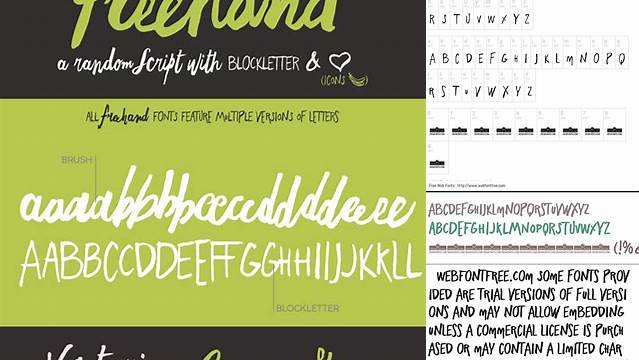
Dafont Freehand Blockletter Fonts: Your Go-To Guide
Hey guys, ever found yourself scrolling through Dafont, desperately searching for that perfect freehand blockletter font? You know the vibe: bold, a little rough around the edges, but with a personal touch that screams uniqueness. Whether you're designing a cool t-shirt, crafting a catchy social media post, or even working on a personal project that needs that extra bit of character, finding the right font can be a game-changer. And let's be real, when we're talking about that dafont freehand blockletter style, we're often looking for something that feels a bit more organic, less like it came straight off a digital printer and more like it was sketched out with love (and maybe a thick marker!).
This isn't just about finding any old font; it's about discovering those gems that capture a specific aesthetic. Freehand blockletters have this awesome retro feel, often associated with vintage signage, old-school graffiti, and DIY projects. They usually feature thick, uniform strokes, with a somewhat casual and imperfect outline. The 'freehand' aspect implies a lack of strict geometric precision, allowing for slight variations in line weight and character shape, which is exactly what gives them their charm. Dafont, being the massive treasure trove it is, hosts a dizzying array of these styles. So, let's dive deep into the world of dafont freehand blockletter fonts and uncover some absolute winners that will elevate your designs. We'll explore different categories, discuss what makes a good freehand blockletter font, and point you towards some specific examples you can start downloading right now. Get ready to boost your font game, because we're about to make your design life a whole lot easier and a whole lot cooler. Let's get this font party started!
Exploring the Nuances of Freehand Blockletter Typography
The term freehand blockletter itself conjures up a very specific visual. Think of those classic, robust letterforms that appear to have been drawn rather than meticulously designed on a computer. The 'blockletter' part refers to the substantial, often uniform thickness of the strokes, giving the letters a solid, impactful presence. What sets a freehand blockletter apart, however, is the subtle imperfection that comes with the human touch. Unlike sterile, perfectly geometric fonts, freehand versions might feature slight wobbles, inconsistent curves, or a playful irregularity in the spacing. This is precisely what makes them so appealing for projects that aim for a raw, authentic, or vintage feel. When you’re browsing Dafont for these types of fonts, you’ll notice a spectrum of styles, from those that are barely distinguishable from perfect digital creations to those that wear their hand-drawn origins proudly, with visible sketch lines or brush strokes.
Understanding these nuances is key to selecting the right font for your needs. Are you going for a bold, attention-grabbing headline that has a touch of a street art vibe? Or perhaps a more distressed, vintage look for a logo that evokes a bygone era? The subtle differences in the 'freehand' quality can drastically alter the overall mood and message of your design. Some freehand blockletters lean heavily into a stencil aesthetic, with sharp edges and deliberate breaks, perfect for that industrial or military-inspired look. Others might have a softer, more rounded quality, reminiscent of hand-painted signs on old shop fronts. Dafont is a fantastic resource because it categorizes fonts in ways that help users find these specific styles, even if they don't know the exact technical term. Searching for 'blockletter,' 'brush,' 'stencil,' or even 'hand-drawn' can often lead you to the dafont freehand blockletter style you're after. It's about appreciating the artistry involved in creating a font that feels personal and dynamic, even when it's rendered digitally. So, when you’re next on Dafont, take a moment to really look at the details – the subtle curves, the unique terminals, the overall texture. That’s where the magic of freehand blockletter typography truly lies.
Discovering Unique Freehand Blockletter Styles on Dafont
When you're on the hunt for that perfect freehand blockletter font on Dafont, it's easy to get overwhelmed by the sheer volume. But trust me, guys, the platform is a goldmine if you know what you're looking for. Beyond the standard blocky designs, Dafont hosts an incredible variety of unique interpretations of the freehand blockletter style. We're talking about fonts that incorporate elements of graffiti, brush strokes, distressed textures, and even a touch of comic book flair. These aren't your everyday, run-of-the-mill fonts; they're the kind that make your designs pop and grab attention. For instance, you might stumble upon a font that looks like it was spray-painted onto a wall, complete with drips and overspray effects. Or perhaps one that mimics the bold, uneven lines of a marker pen used in haste for a protest sign. The 'freehand' aspect is crucial here – it injects personality and a sense of urgency or spontaneity into the letterforms. Dafont's categorization, while sometimes a bit quirky, can be your best friend. Using keywords like 'brush,' 'spray,' 'graffiti,' 'stencil,' and 'distressed,' in addition to 'blockletter,' will often lead you to some of the most distinctive dafont freehand blockletter options available.
What makes these styles so special is their ability to convey a strong message without being overly complex. The boldness of the blockletter format ensures readability, while the freehand element adds a layer of authenticity and character. Think about designing posters for a local band, creating merchandise for a skate shop, or even developing a personal brand identity. In these scenarios, a generic font just won't cut it. You need something with attitude, something that feels handmade and genuine. Dafont offers fonts that tick all these boxes. Some might have sharp, angular edges, giving them a more aggressive, urban feel, while others might be softer and more rounded, providing a friendlier, more approachable vibe. It's all about the subtle details: the slight slant, the variation in stroke width, the way the serifs (or lack thereof) are rendered. Exploring these unique styles on Dafont allows you to move beyond the predictable and inject a truly custom feel into your projects. Don't be afraid to experiment and download a few different options to see which one best captures the spirit of what you're trying to create. The diversity is astounding, and the potential for creative expression is limitless.
The Allure of Hand-Drawn Blockletters for Modern Design
In today's digital world, there's a fascinating counter-trend emerging: the appreciation for anything that feels handmade. This is where the freehand blockletter font truly shines. Guys, let's face it, everything can start to look a bit samey online, right? Perfectly crafted, geometrically precise fonts are everywhere. But when you inject a freehand blockletter into your design, you're instantly adding a dose of personality, a human element that resonates with people. On platforms like Dafont, you can find countless examples that perfectly embody this trend. These fonts often look like they’ve been sketched with a thick marker, brushed on with bold strokes, or even stenciled with a bit of grit. They possess a certain raw energy that digital perfection often lacks. This isn't just about aesthetics; it's about creating a connection. A hand-drawn feel can make your brand seem more approachable, more authentic, and more relatable. It's the difference between a sterile corporate logo and a cool, indie brand logo that feels like it was designed by a real person with passion.
Think about the applications: t-shirts, posters for concerts or festivals, cafe signage, branding for small businesses, or even just personal invitations. A dafont freehand blockletter can provide that immediate visual impact and convey a specific mood – be it playful, rebellious, vintage, or effortlessly cool. The 'blockletter' aspect ensures that the font remains bold and legible, even at smaller sizes or when used in high-contrast situations. The 'freehand' element, however, is where the real magic happens. It allows for slight imperfections, variations in line weight, and a less rigid structure that adds character and depth. These imperfections are not flaws; they are features that make the font unique and memorable. When you browse Dafont, look for those fonts that have a distinct character, maybe a slight wobble in the baseline, or a playful quirk in a specific letter. These are the elements that make a design feel alive. Embracing these hand-drawn qualities in your typography choices is a fantastic way to stand out from the crowd and communicate a genuine, human-centric message. It’s a powerful tool for building brand identity and making a lasting impression in a visually saturated world.
Finding the Perfect Freehand Blockletter Font on Dafont: Tips and Tricks
Alright, let's get down to business, guys. You've decided you need that killer freehand blockletter font for your next project, and Dafont is your chosen hunting ground. But with thousands upon thousands of fonts, how do you actually find the perfect one without spending your entire day clicking around? Here are some pro tips to make your search efficient and fruitful. Firstly, master the search terms. Don't just type 'blockletter'. Mix it up! Try 'freehand block', 'marker block', 'brush block', 'stencil block', 'bold hand drawn', 'rough block', or even 'vintage block'. The more descriptive you are, the better your results will be. Dafont's tagging system can be a bit hit-or-miss, so varying your search helps catch different categorizations. Secondly, utilize the preview function religiously. Once you get a list of potential candidates, type in your project's key phrases or words into the preview box. This is crucial! Seeing how 'Awesome Project' or 'Limited Edition' looks in a specific font will tell you much more than the default 'The quick brown fox...' ever could. Pay attention to how individual letters connect (or don't), how numerals look, and if punctuation marks fit the overall style. Thirdly, check the license. This is super important, especially if your project is for commercial use. Many Dafont fonts are free for personal use but require a license for commercial projects. Always look for the license information provided by the font author – it's usually accessible from the font's download page. Don't assume free means free for everything!.
Fourthly, consider the context. A font that looks amazing as a giant headline might be illegible as body text. Freehand blockletters are generally best suited for display purposes – headlines, titles, logos, short phrases. Think about the overall mood you want to convey. Is it grungy and urban? Retro and playful? Bold and assertive? The subtle imperfections of a dafont freehand blockletter font can amplify this mood. Fifth, download and test. Sometimes, a font just doesn't work the way you expect it to on your computer or in your design software. Download a few top contenders and try them out in your actual design program. See how they kern, how they stack, and how they feel alongside other design elements. Finally, explore related fonts. If you find a font you love, check if the author has other fonts available, or see if Dafont suggests similar fonts based on tags or popularity. Often, the creator has a whole family of related styles that might be even better suited for your project. By employing these strategies, you’ll navigate Dafont like a pro and unearth those hidden dafont freehand blockletter treasures that will make your designs truly stand out. Happy hunting!
H2: Categorizing Freehand Blockletter Fonts for Specific Needs
When diving into the vast ocean of typography on Dafont, specifically looking for freehand blockletter styles, it’s super helpful to categorize them based on their intended use and aesthetic nuances. Not all freehand blockletters are created equal, guys! Some are perfect for a bold, impactful statement, while others offer a more subtle, vintage charm. Let's break down a few common categories you'll find that can help narrow down your search.
First up, we have the **